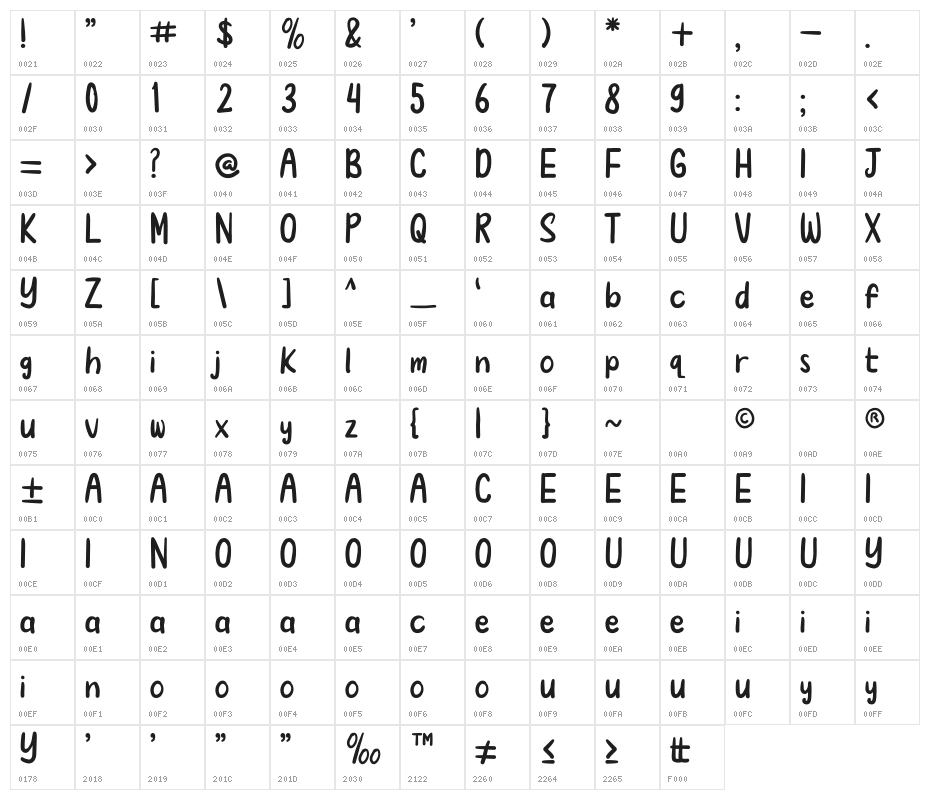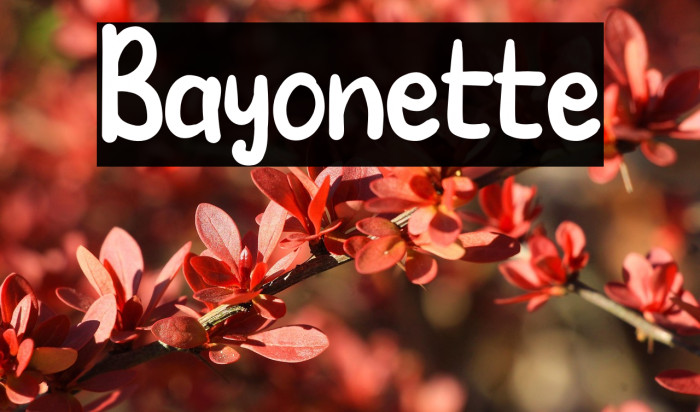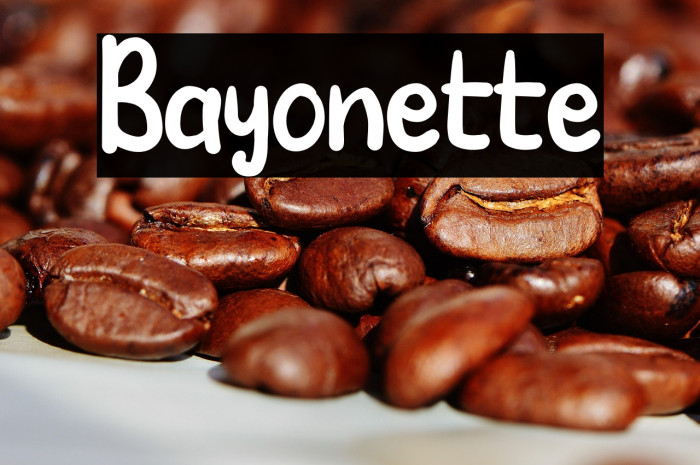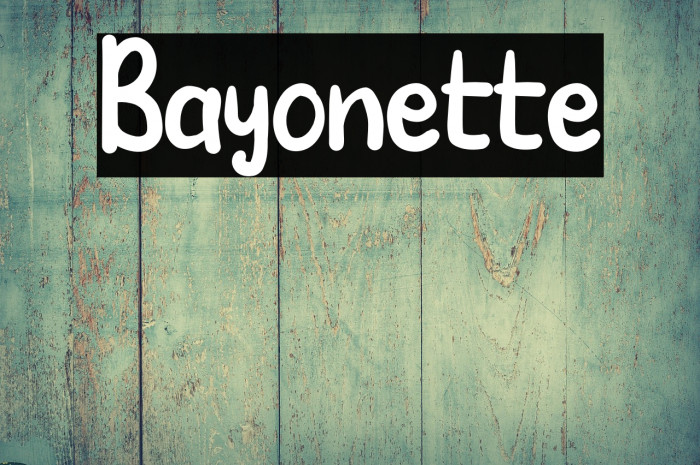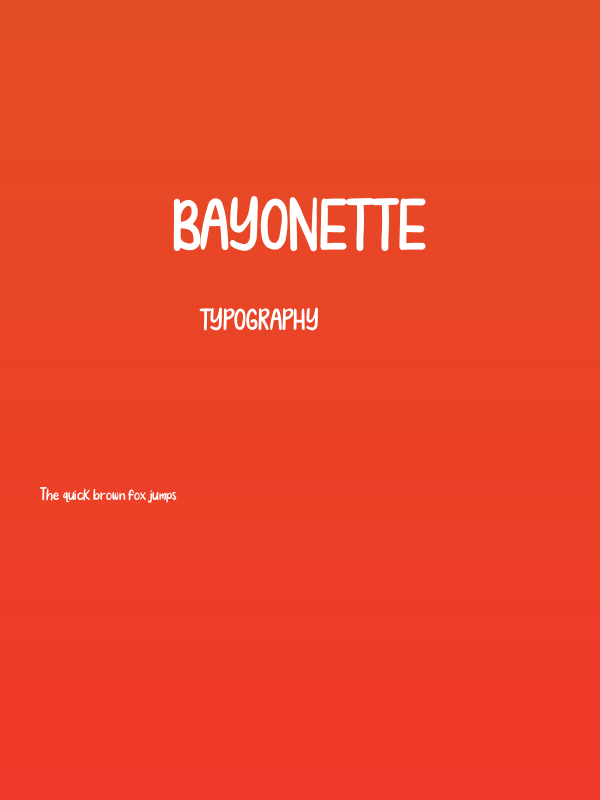
Bayonette Font
Bayonette Description
A playful, handwritten font with rounded edges and a casual style.
| Use Case | Headlines, Informal text, Branding |
| Proposed Projects | Children's books, casual invitations, playful branding. |